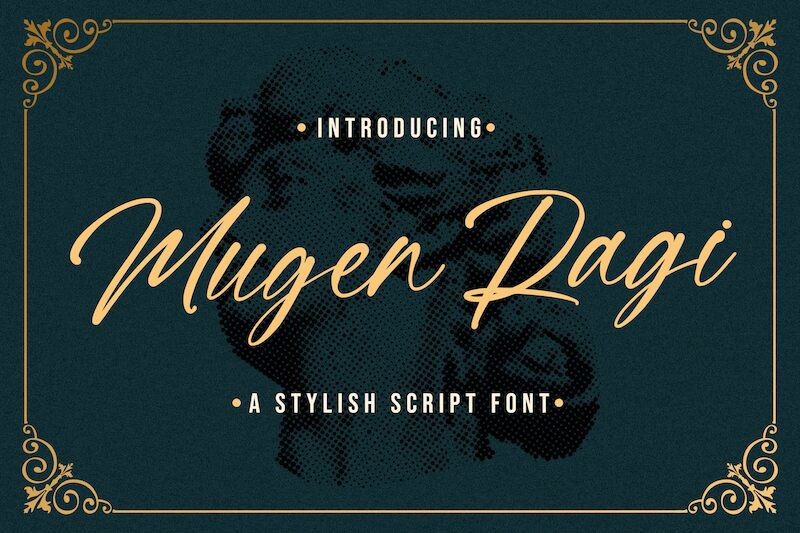
Mugen Ragi
Mugen Ragi captures the essence of personal touch in digital typography with its handwritten, signature style. Crafted by StringLabs Creative Studio, this semi-light font offers an elegant blend of casual grace and contemporary sophistication. The flowing curves and slight slant mimic natural handwriting, making it ideal for designs that require a human touch without sacrificing a polished look.
Its aesthetic appeal lies in the balance between readability and artistic flair, perfect for branding, invitations, or editorial content. Mugen Ragi's versatility shines through its ability to convey authenticity in various creative projects, from personalized logos to heartfelt messages on social media graphics. Embrace the charm of Mugen Ragi to add a stroke of individuality to your next design endeavor.